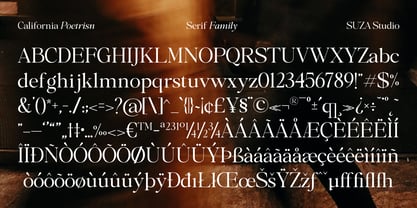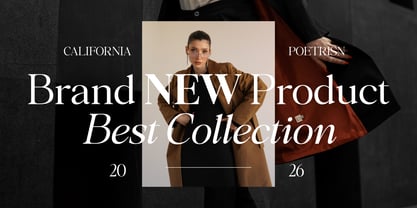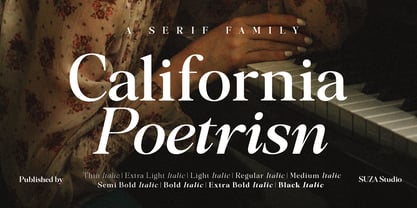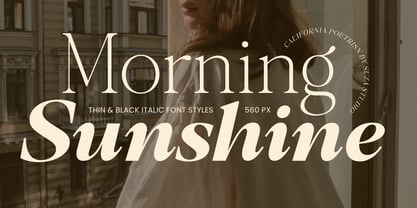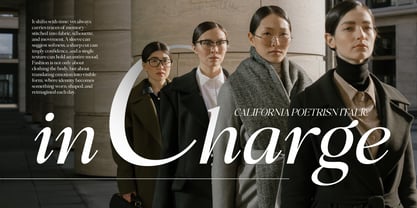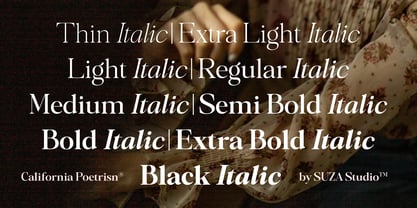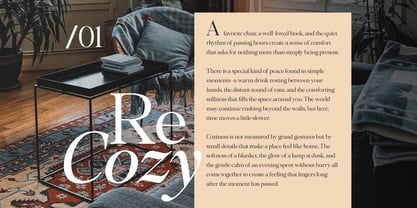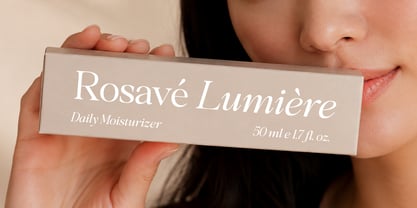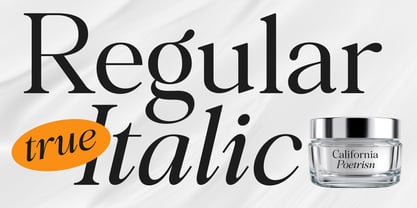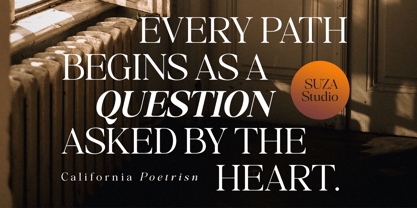
California Poetrisn
Die Schriftfamilie California Poetrisn wurde von Zikrillah entworfen und von Suza Studio veröffentlicht. California Poetrisn enthält 18 Stile und Familienpaketoptionen. Mehr über diese Familie
California Poetrisn is a contemporary serif font family with 18 files, designed for extreme flexibility through variable font technology.
California Poetrisn combines the elegance of classic serifs with a crisp, clean modern touch. Its highly adaptable structure caters to a wide range of design needs, with Technical Strength leveraging variable font technology for smooth transitions in weight and width without losing character detail.
• Thin to Black
• Regular & Italic
• Multilingual
• Numbers & Punctuation